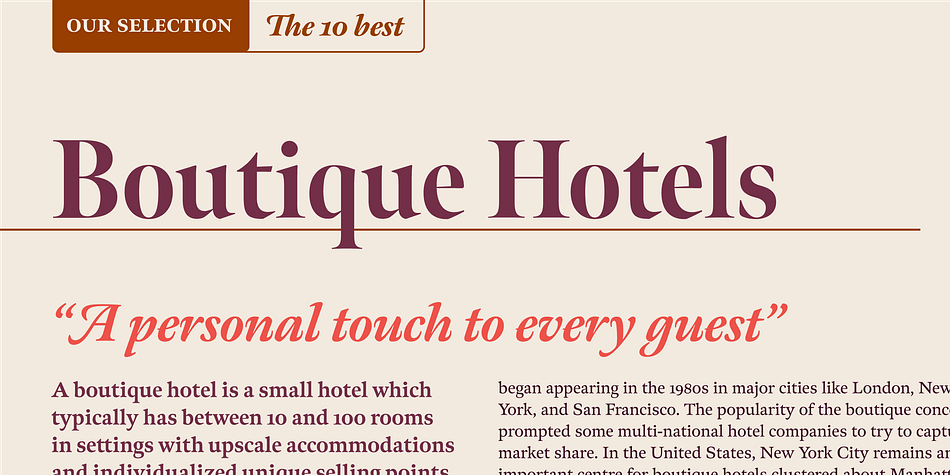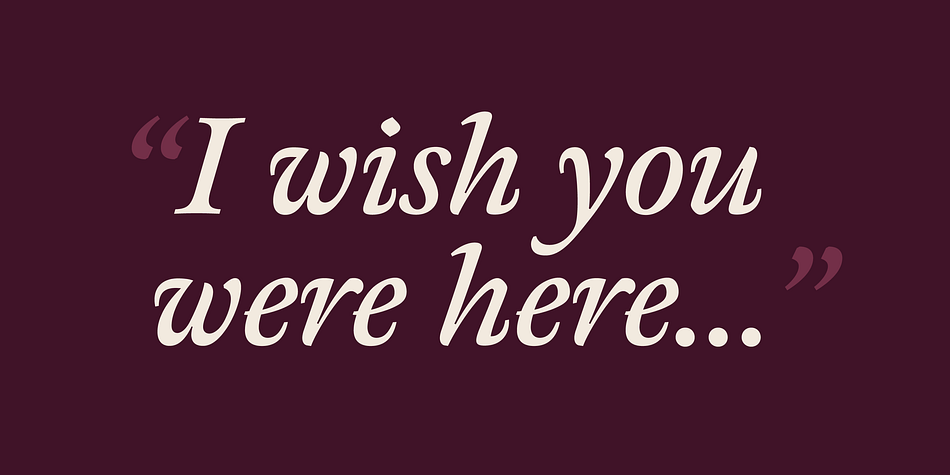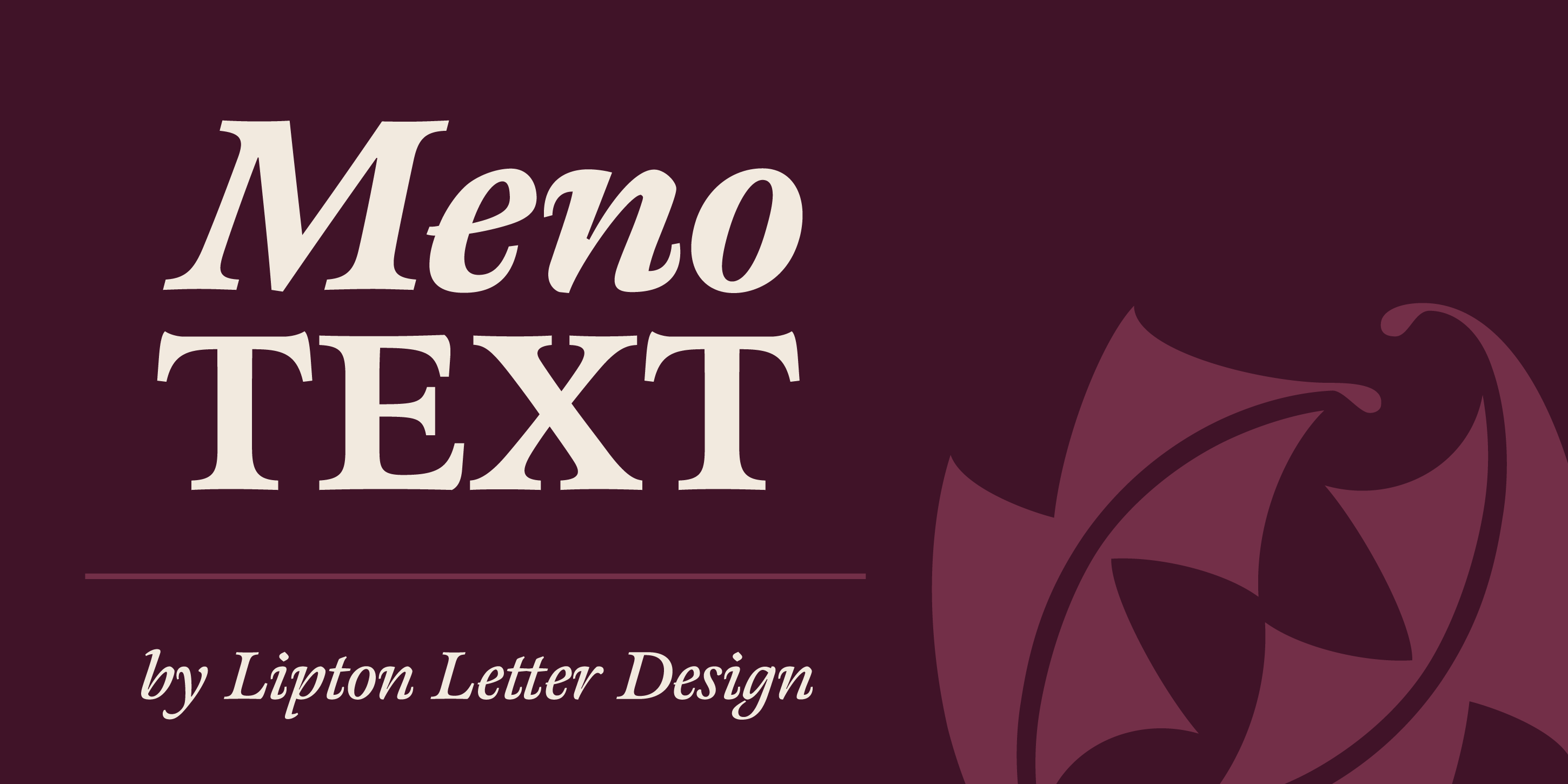
Meno Text
Designed by Richard Lipton, Meno Text is a serif font family. This typeface has six styles and was published by Lipton Letter Design.
The romans gain their energy from French baroque forms cut late in the 16th century by Robert Granjon, the italics from Dirk Voskens’ work in 17th-century Amsterdam.
Steadfast in text settings, Meno is replete with alternate forms, swashes, and other enhancements that showcase Lipton’s masterful calligraphic hand.
Richard Lipton designed Meno in 1994 as a modest yet elegant workhorse serif family in seven styles. In 2016, he expanded this spirited oldstyle into a 78–style superfamily. The romans gain their energy from French baroque forms cut late in the 16th century by Robert Granjon, the italics from Dirk Voskens’ work in 17th-century Amsterdam. Meno consists of three carefully drawn optical sizes—Text, Display, and Banner, with Condensed and Extra Condensed widths added to the latter two cuts. Steadfast in text settings, Meno is replete with alternate forms, swashes, and other enhancements that showcase Lipton’s masterful calligraphic hand. The series offers a complete solution for achieving high-end editorial typography.